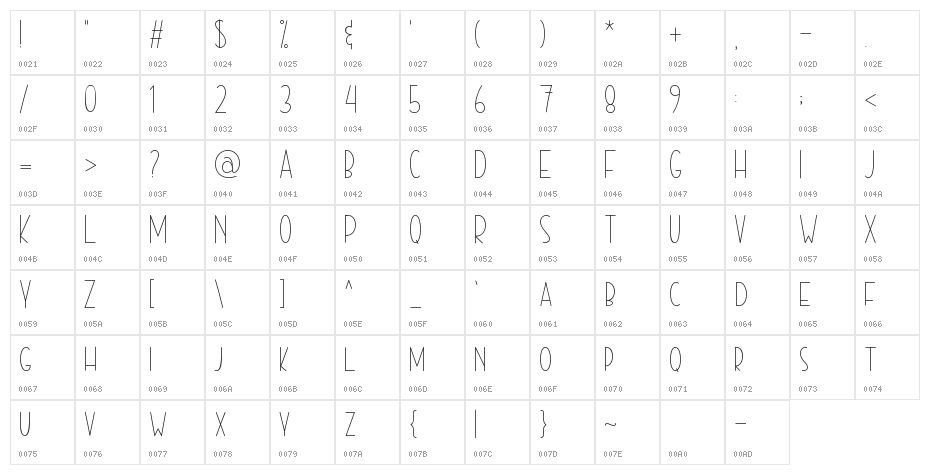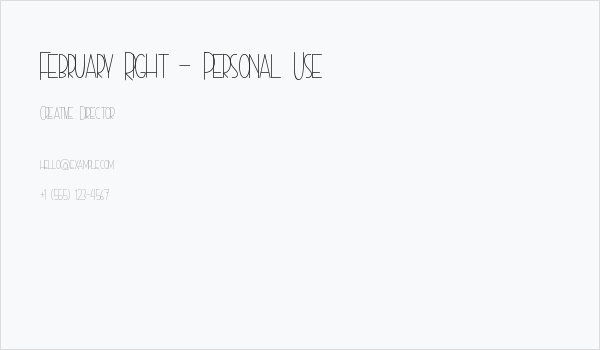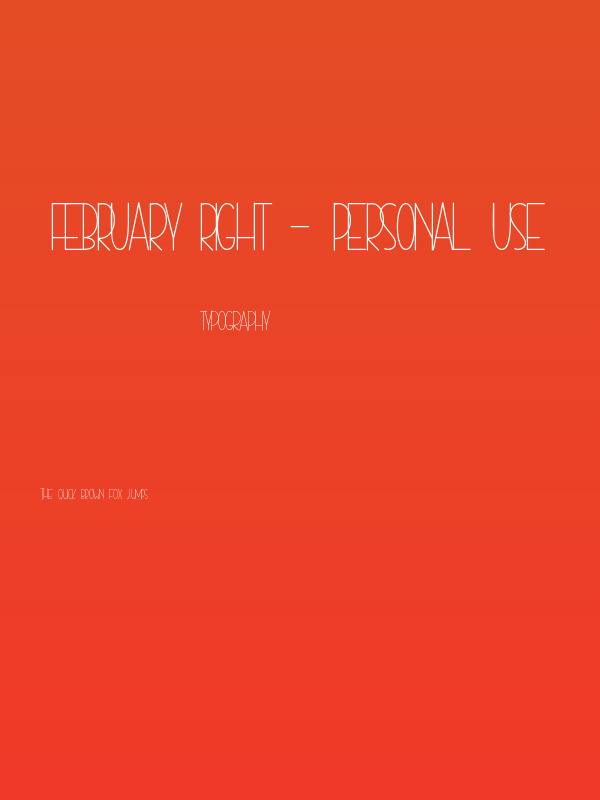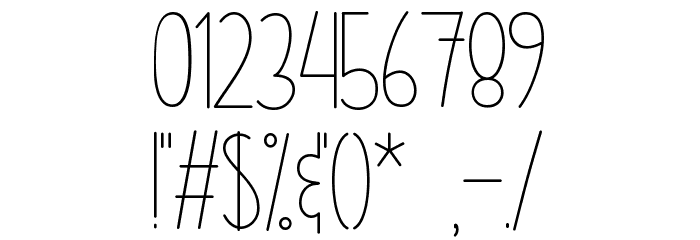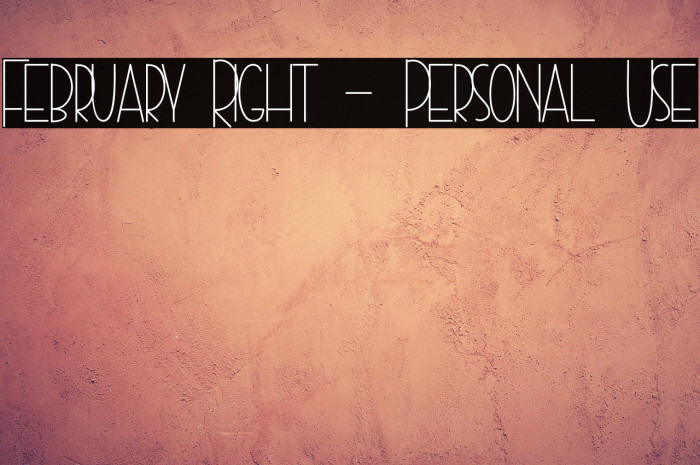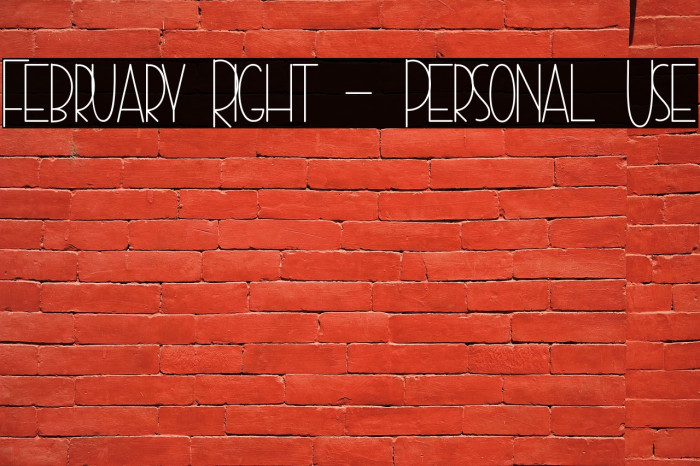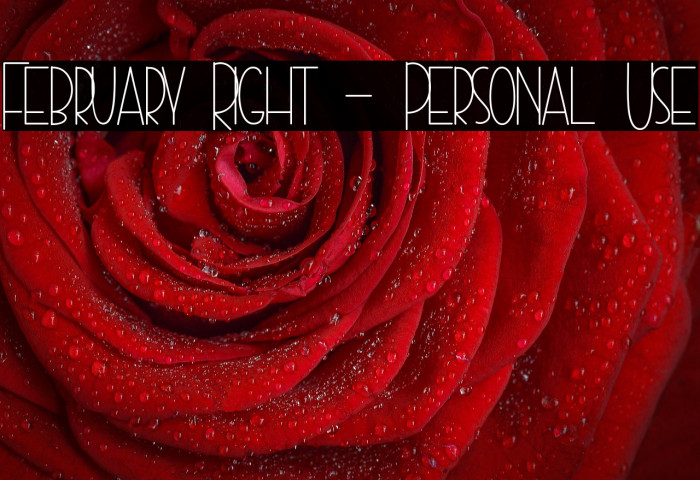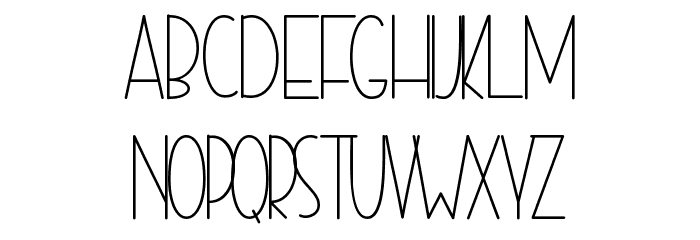
February Right - Personal Use Font
February Right - Personal Use Description
This font features a tall, narrow design with elongated letterforms that give it a sleek and modern appearance. The characters are thin and evenly spaced, creating a clean and minimalist aesthetic. The uppercase and lowercase letters maintain a consistent height, while the numbers and special characters blend seamlessly into the overall style. The font's linear structure and geometric shapes make it suitable for contemporary designs, offering a sense of elegance and sophistication. Its simplicity and clarity ensure readability, making it versatile for various applications.
| Proposed Projects | Ideal for fashion branding, editorial layouts, modern posters, and minimalist web design. |